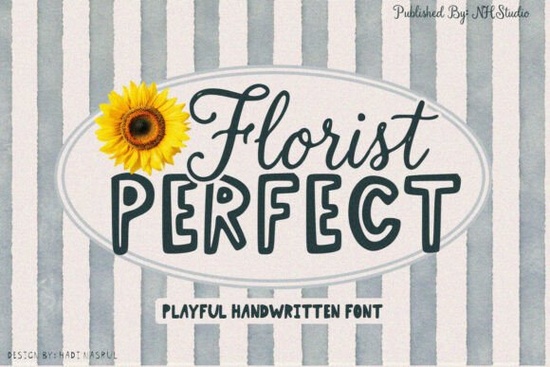
If you're looking for a handwritten font that feels warm, friendly, and easy to work with, Florist Perfect is worth a closer look. It has a relaxed, playful personality that works beautifully for everything from bakery logos to children's brand packaging. The letterforms are soft and approachable without sacrificing readability, which is exactly what many small business and crafting projects need.
What kinds of projects does Florist Perfect work well for?
This font was designed with real-world use cases in mind. It shines in projects where you want to feel personal and inviting rather than formal. Some of the most popular uses include:
- Flower shop branding logos, signage, and social media graphics
- Bakeries and cafes menu headers, packaging labels, loyalty cards
- Handmade craft businesses hangtags, stickers, custom boxes
- Eco-friendly and organic brands product labels, jar packaging
- Children's products booklets, activity sheets, party invitations
Because the style is cheerful without being overly decorative, it stays readable at smaller sizes too. That makes it practical for labels and stickers where space is limited.
How does Florist Perfect compare to other handwritten fonts?
There's no shortage of handwritten typefaces out there, so it's fair to ask what makes this one stand out. The main thing is balance. Some playful fonts lean too far into casual territory and become hard to read. Others look nice but feel stiff. Florist Perfect sits right in the middle it's relaxed enough to feel genuine but structured enough for professional use.
If you're comparing options, you might also enjoy browsing fonts with a similar handwritten energy. A cheerful script with a bouncy baseline can give a comparable feel, while a bold signature style works better when you want something more expressive. Having a few of these in your toolkit lets you match the mood of each project.
For example, if you love scripts with a flowing, connected look, something like a graceful connecting script pairs nicely alongside Florist Perfect for layered designs. Meanwhile, a lighthearted display script can handle larger headlines while Florist Perfect takes care of body copy and supporting text.
Can I use this font for print-on-demand products?
Absolutely. Print-on-demand sellers often need fonts that look great on mugs, tote bags, t-shirts, and greeting cards without requiring heavy editing. Florist Perfect's clean but charming letterforms translate well to printed merchandise because they maintain their character even at different sizes.
One practical tip: when pairing this font on POD designs, use a simple sans-serif for secondary text. The contrast keeps your layout balanced and ensures the handwritten style doesn't compete with itself. If you're designing for multiple product types, test the font at the actual print size before finalizing what looks perfect on screen can sometimes feel too tight or too loose on physical products.
Does Florist Perfect support special characters and other languages?
This is an important question, especially if you sell to international audiences. The font includes standard Latin characters, numbers, and common punctuation. It covers the basics for most English-language projects and several European languages. However, if you need extended Cyrillic or Asian language support, you'll want to check the full character map before purchasing.
For projects that need a more formal handwritten look with broad character coverage, exploring options like an elegant signature style or a refined calligraphy typeface might be helpful as well.
How do I pair Florist Perfect with other fonts?
Good font pairing makes a design feel polished. Here are a few simple approaches that work with this typeface:
- With a clean sans-serif Use Florist Perfect for headlines and a geometric sans for descriptions. This is the safest, most versatile combination.
- With a bold slab serif Great for rustic or farmhouse-style branding where you want a bit more weight.
- With a minimal script If you want both text layers to feel handwritten, choose a lighter, more understated script like a minimal script option to keep things from looking cluttered.
The key rule is contrast. If your headline font is loose and playful, your supporting font should be tighter and more neutral.
Quick checklist before you start designing
- Define your use case Will this font be for logos, packaging, or merchandise? Size matters.
- Test readability Print a sample at actual size to confirm it looks right.
- Pick a pairing font Choose a complementary sans-serif or clean serif before you start.
- Keep it simple One handwritten font per design is usually enough. Let Florist Perfect do the talking.
Whether you're refreshing a small business brand or building a new print-on-demand collection, this is a typeface that handles a wide range of creative projects without overcomplicating your workflow. Start with one design, test it out, and see how it fits your style.